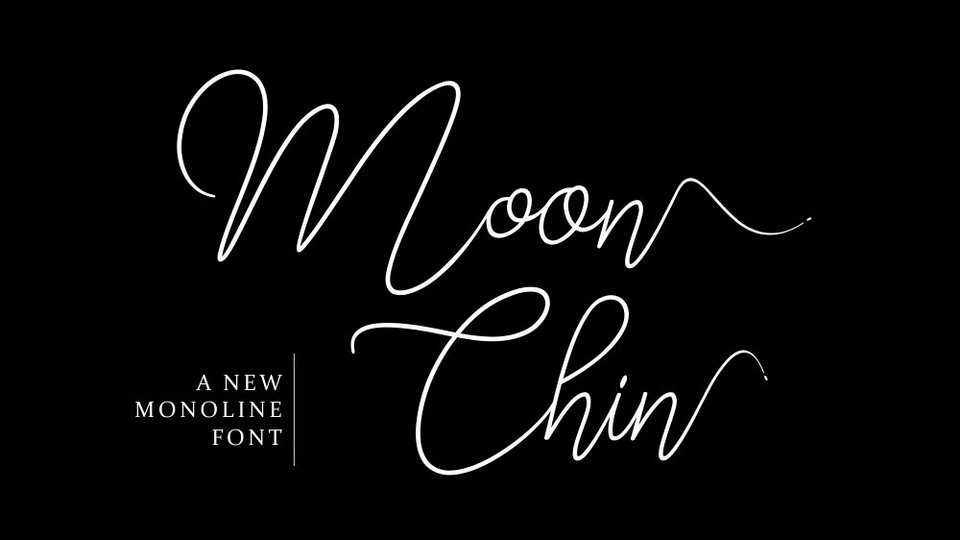
Download Moon Chin font, a beautiful connecting script with a dancing baseline, designed to convey elegance and style. All designs will have a wonderful natural touch.